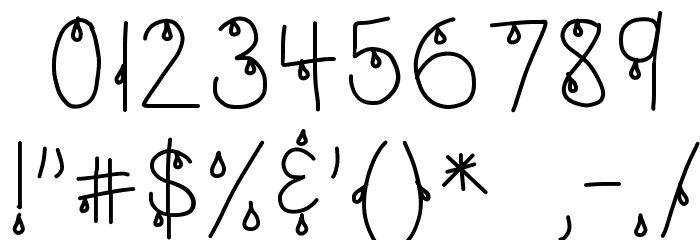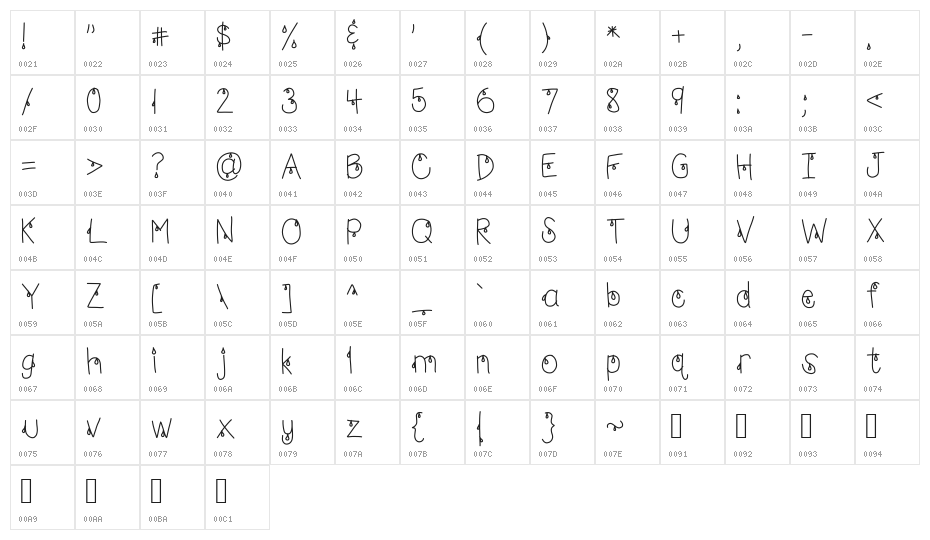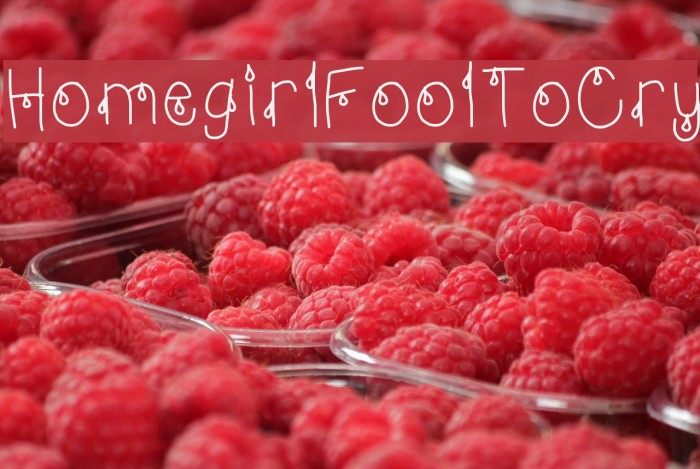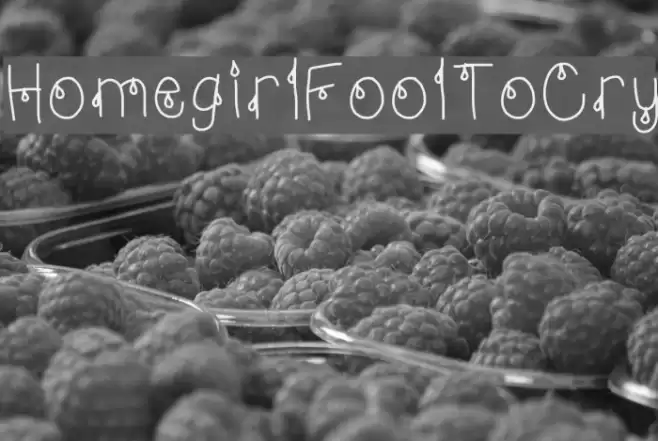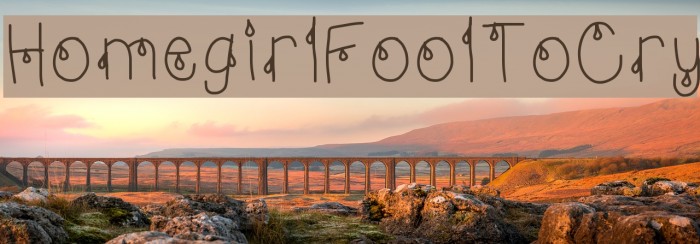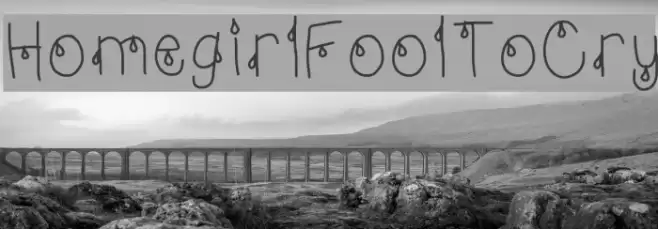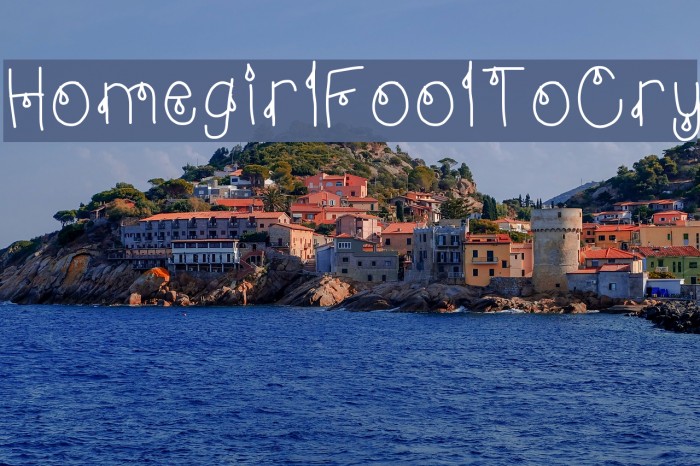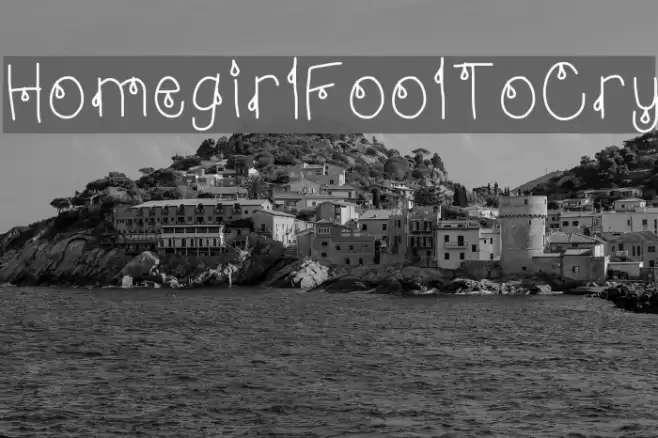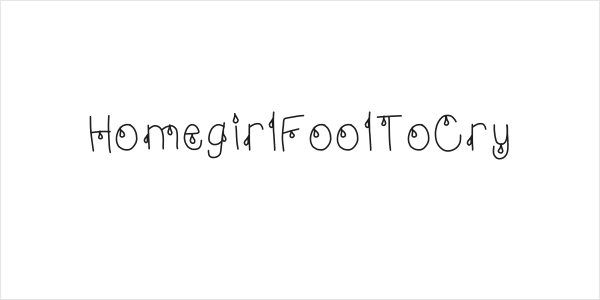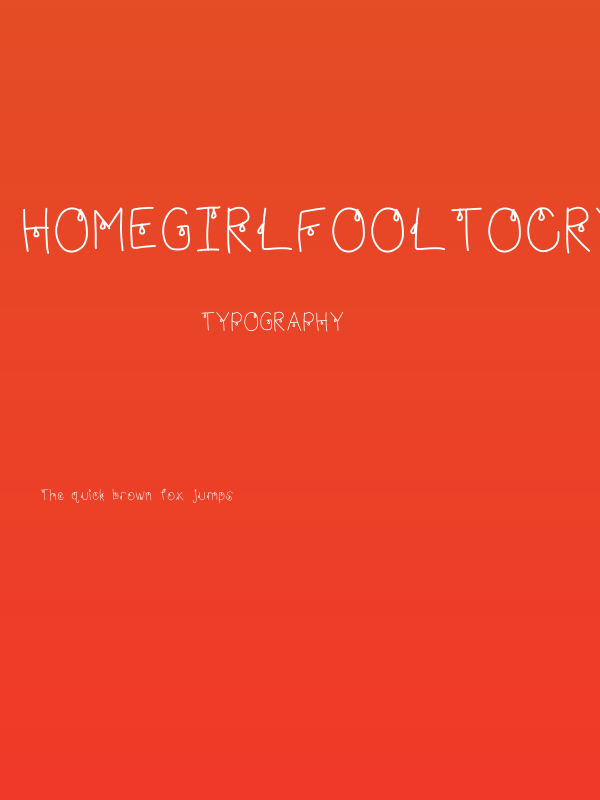
HomegirlFoolToCry Font
HomegirlFoolToCry Description
This font features a whimsical and playful design, characterized by its unique teardrop-shaped embellishments on each character. The letters are tall and slender, with a hand-drawn quality that adds a sense of charm and individuality. The uppercase and lowercase letters maintain a consistent style, while the numerals and special characters follow the same playful theme. The overall appearance is both quirky and artistic, making it suitable for creative and informal projects.